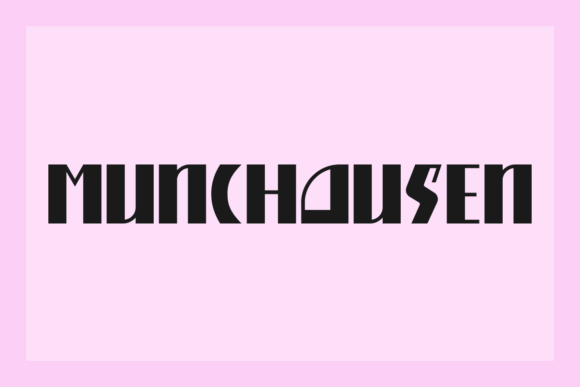
Munchausen, Vintage Display Font for Posters & Branding
Munchausen is a display‑style font drawing inspiration from early 1900s exhibition poster lettering, giving it a bold, blocky, and slightly vintage‑art‑deco look and feel. Its strong letterforms and distinctive style bring instant character to headings, logos, labels, posters, packaging, and any design where typography needs to stand out. As a downloadable font asset, Munchausen works easily across design software, print workflows, and crafts or merchandise production.
- Posters, flyers, event signage, art prints, vintage‑style advertisements and promo materials
- Product packaging, labels, tags, signage, packaging artwork, branding collateral
- Merchandise & POD items — t‑shirts, mugs, tote bags, stickers — especially designs needing bold, attention‑grabbing text
- Logos and brand marks that need a vintage / retro display aesthetic
- Craft and cut‑file projects — vinyl decals, paper‑cut signage, printed labels or custom décor
- Distinctive vintage / art‑deco inspired character — stands out from standard fonts and adds flair to design projects
- High visibility and strong impact — ideal for headings, signage, posters, and designs meant to catch the eye
- Flexible and versatile — works across print, digital, merchandise, packaging, and craft/cut‑file projects
Q: What style does Munchausen have?
A: Munchausen is a display / vintage‑art‑deco style font, with bold, blocky letterforms inspired by early 1900s poster lettering — great for headlines, signage, posters, and packaging.:contentReference[oaicite:4]{index=4} -